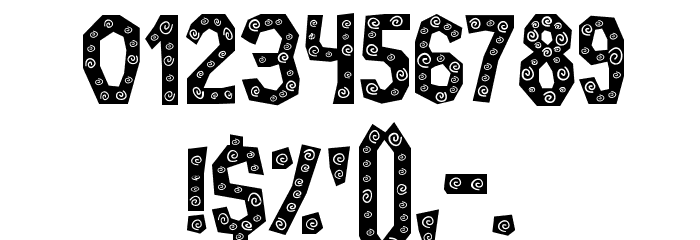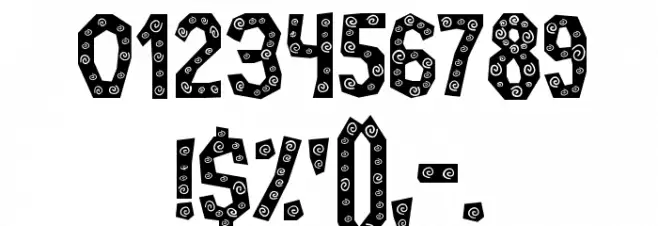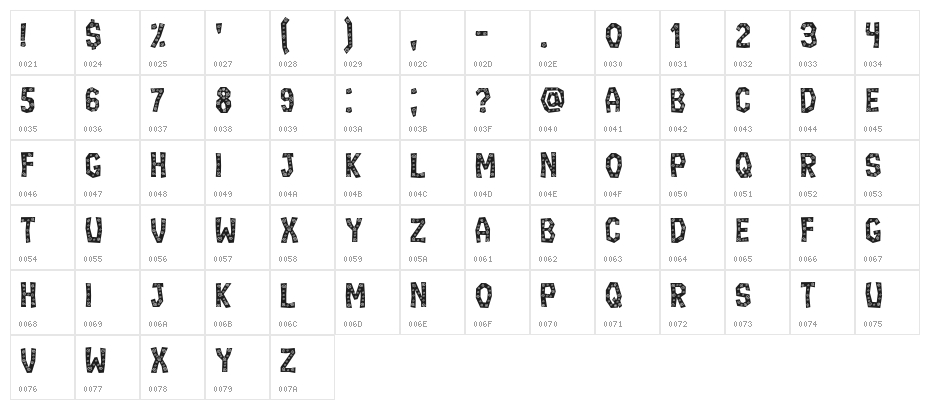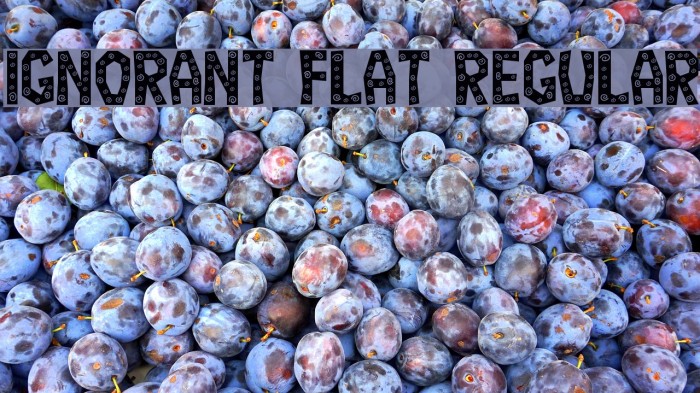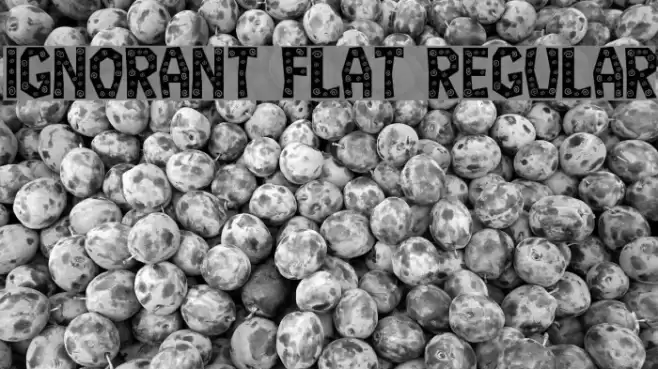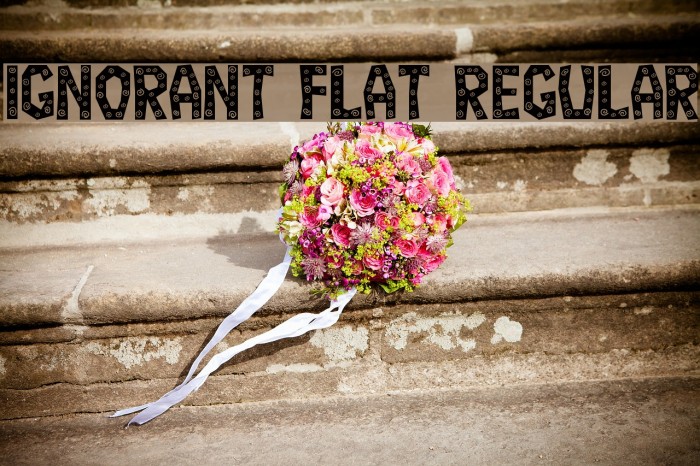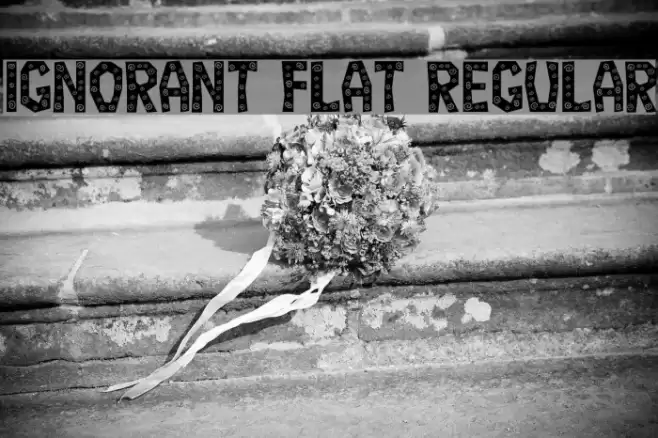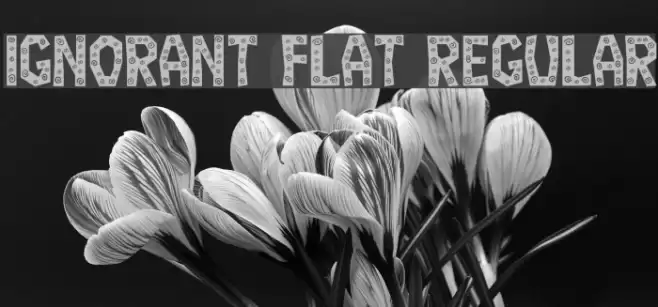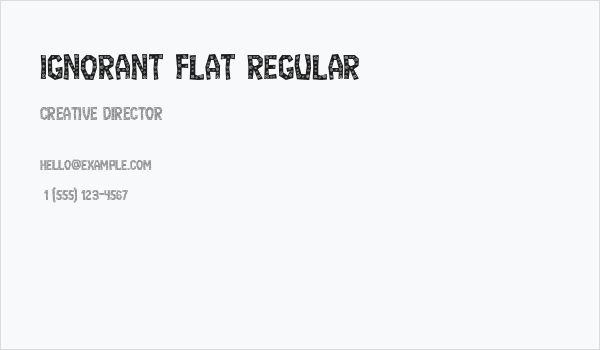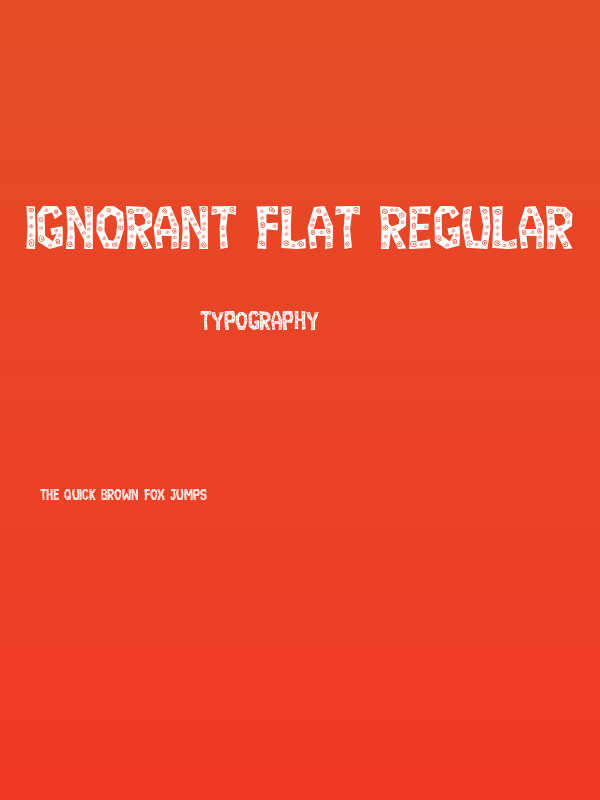
Ignorant Flat Regular Font
Ignorant Flat Regular Description
This font features a playful and whimsical design with a bold, blocky structure. Each character is adorned with small spiral patterns, adding a unique decorative element. The letters are uniformly wide, creating a consistent and cohesive look across the alphabet. The font's style is eye-catching and fun, making it suitable for creative and informal projects. Its boldness ensures high visibility, while the decorative spirals add a touch of charm and personality. The numbers and special characters maintain the same playful theme, ensuring a harmonious appearance throughout.